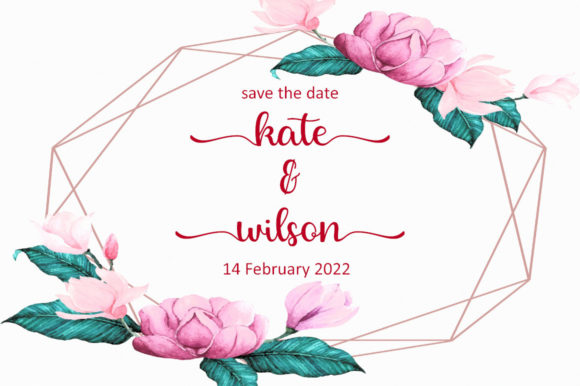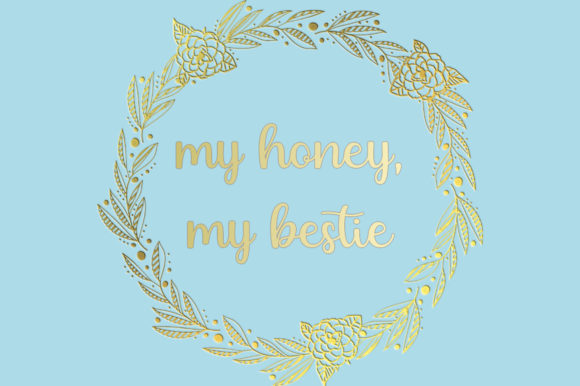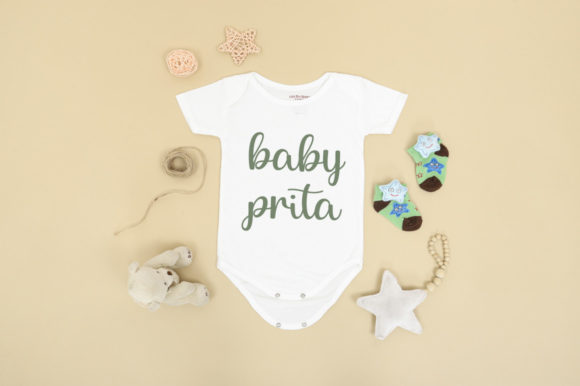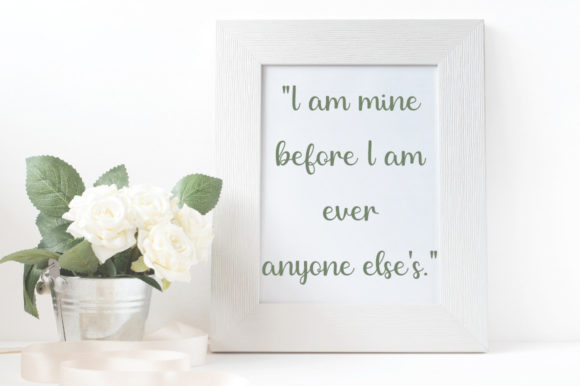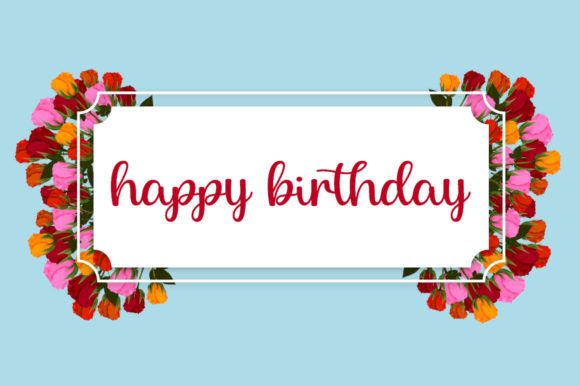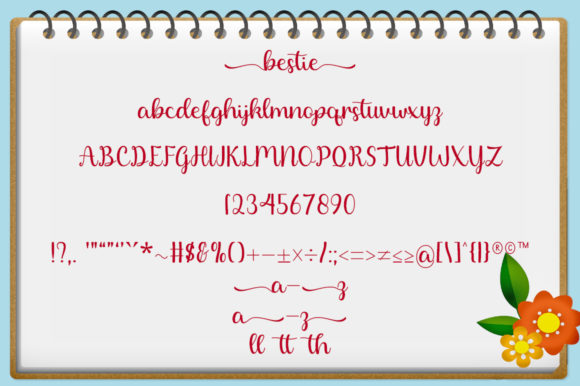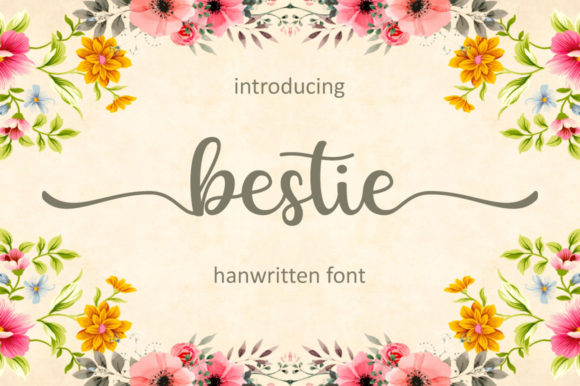
The Bestie Font: A Sweet and Cute Calligraphy Typeface
What is Bestie Font?
Bestie is a cute and sweet calligraphy typeface that will make your designs dance with joy. Its characters dance along the baseline, giving it a casual, yet elegant touch. This font is perfect for designers, crafters, and creative hobbyists who want to add a personal touch to their projects. One of the best things about Bestie is that it’s PUA encoded, which means you can access all of the glyphs and swashes with ease!
So, what do I love about Bestie? Here are a few things:
- ✨ Cute and playful vibe: Bestie has a unique, hand-drawn feel that’s perfect for designs that need a personal touch.
- ✅ Elegant and casual: This font strikes the perfect balance between elegance and casualness, making it suitable for a wide range of projects.
- 🎉 PUA encoded: With PUA encoding, you can access all of the glyphs and swashes with ease, making it easy to customize your designs.
Now, I’m not going to sugarcoat it – there are a few small quirks to be aware of:
- 🤔 Limited use in very formal designs: Bestie is a playful font, so it may not be the best choice for very formal or corporate designs.
- ⚠️ Some characters may require manual adjustment: Depending on the design, some characters may require manual adjustment to get the perfect look.
The Story Behind Bestie
Bestie was designed by a team of typographers who wanted to create a font that was both elegant and playful. The design process involved a lot of experimentation with different letterforms and swashes. The goal was to create a font that would be perfect for designs that needed a personal touch. And, judging by the popularity of Bestie, I think they succeeded!
A: PUA (Private Use Area) encoding is a way of encoding fonts that allows for a large number of glyphs and swashes to be included. This makes it easier to access and use the font’s advanced features.
Q: Is Bestie a difficult font to use?
A: No, Bestie is a relatively easy font to use, especially if you’re familiar with OpenType features and glyphs. The font comes with a range of features that make it easy to customize and adjust to your needs.